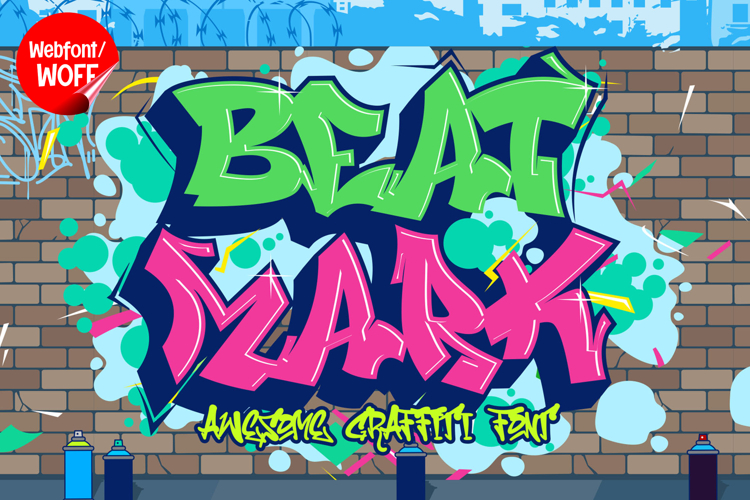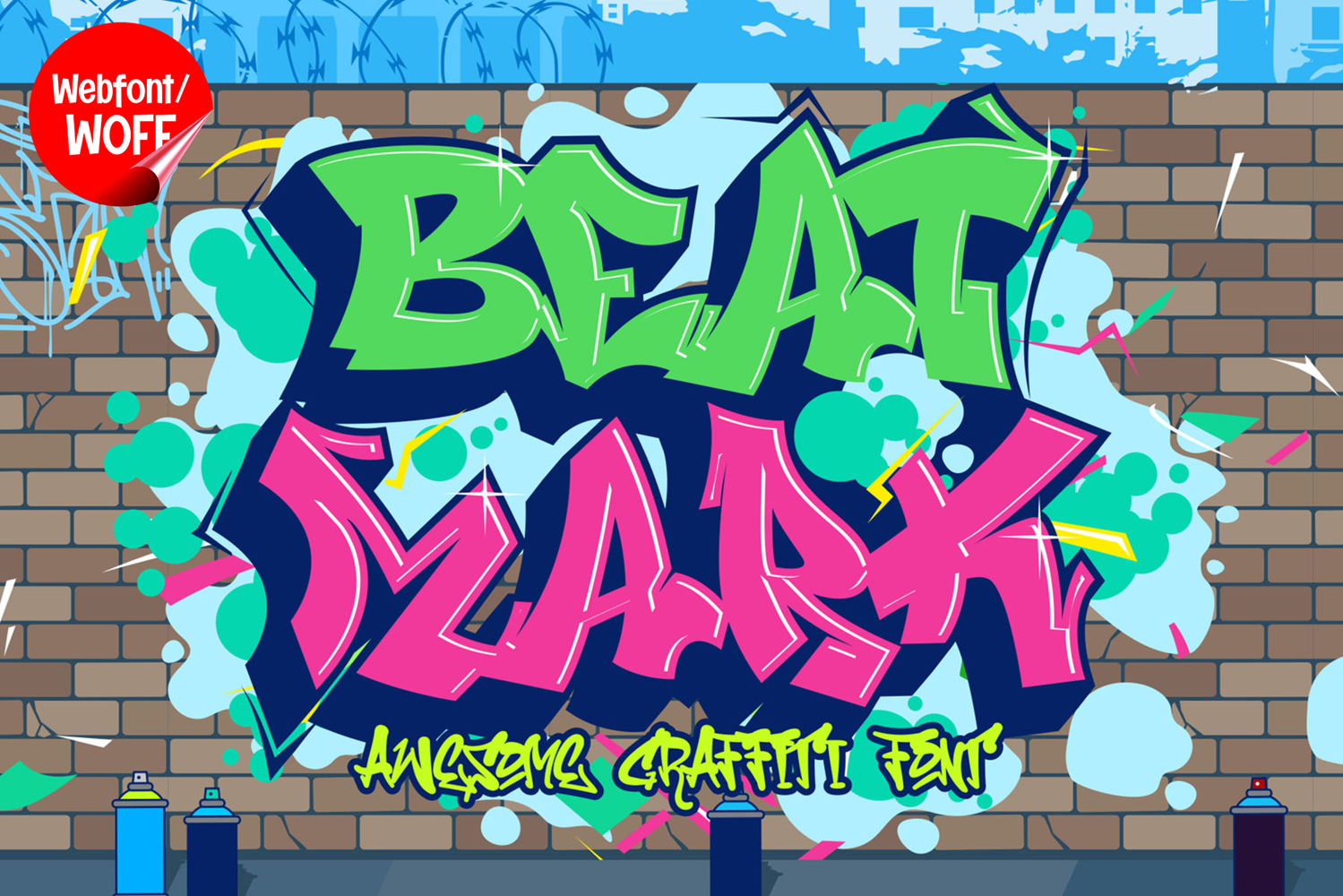
Beat Mark | Wild Decorative Graffiti Webfont for Urban Ideas
Beat Mark is a wild decorative graffiti webfont designed to bring raw energy, expressive style, and bold creativity into modern website design. Inspired by street art culture and freestyle graffiti lettering, this font features dynamic shapes, irregular forms, and artistic details that create a strong and rebellious visual presence. It is an excellent choice for projects that aim to stand out with an edgy and highly expressive typographic identity.
Beat Mark includes a complete set of uppercase characters designed with wild graffiti-inspired forms. The letterforms are bold and energetic, with decorative elements that add personality and movement. These characteristics make it ideal for headlines, banners, hero sections, and featured content where strong visual impact is essential. The expressive style helps create a powerful and memorable impression.
In addition to letters, the font includes numbers and punctuation, allowing flexible usage across various parts of a website. It works well for promotional content, event announcements, branding elements, and creative layouts. Each character maintains a consistent graffiti style, ensuring a cohesive and unified visual identity throughout the design.
With multilingual support, Beat Mark includes a wide range of accented characters, making it suitable for international websites and global audiences. This allows content to be displayed clearly across different languages while preserving the wild and decorative aesthetic.
The wild decorative graffiti style of Beat Mark makes it especially suitable for urban-themed websites, streetwear brands, music platforms, gaming interfaces, and creative portfolios. Its energetic and unconventional design adds personality and intensity, helping websites stand out in competitive digital environments. The decorative elements enhance visual storytelling and bring a sense of artistic freedom.
Despite its bold and expressive appearance, Beat Mark is designed with readability in mind. The spacing and proportions are carefully balanced to ensure clarity, particularly in display sizes. This makes it effective for impactful headings and short content elements where both style and usability are important.
Beat Mark is a webfont that combines graffiti aesthetics with decorative creativity and modern digital performance. Its wild shapes, expressive flow, and urban character create a distinctive typographic presence that enhances website design. For projects that require a bold, artistic, and visually engaging graffiti font, Beat Mark offers a strong and creative solution.